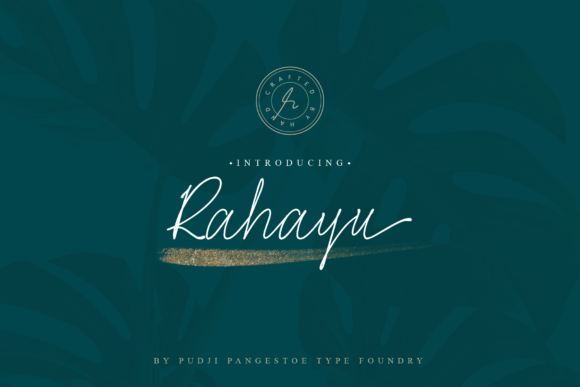
Unlock the Enchanting Script of Rahayu: Your Gateway to Merry Christmas Magic
Indulge in the captivating allure of Rahayu, the meticulously crafted monoline script font that evokes the warmth and enchantment of Christmas. With each graceful stroke, Rahayu transforms your designs into captivating masterpieces, leaving an unforgettable impression on your audience.
Step into a world where festive cheer and elegant artistry intertwine. Rahayu's enchanting script is a celebration of Christmas traditions, evoking the spirit of gift-giving, cozy gatherings, and timeless memories. Its delicate curves and whimsical flourishes capture the essence of the season, adding a touch of magic to every creation.
Imagine the joy of your loved ones as they receive Christmas cards adorned with Rahayu's enchanting script, conveying your heartfelt wishes in a way that resonates deep within their hearts. Create festive posters that ignite holiday cheer, drawing attention to your Christmas events and spreading the warmth of the season.
Rahayu's versatility extends beyond Christmas. Its timeless elegance lends a touch of sophistication to branding projects, t-shirt designs, and packaging. Its delicate strokes add a touch of whimsy to wedding invitations, transforming your special day into a truly enchanting affair.
For those seeking to make a lasting impression, Rahayu is the perfect choice. Its effortless style and undeniable charm will elevate your designs, ensuring that your message stands out from the crowd. Whether you're a designer, a creative enthusiast, or simply a lover of all things Christmas, Rahayu is the font that will ignite your imagination and add a touch of magic to your creations.